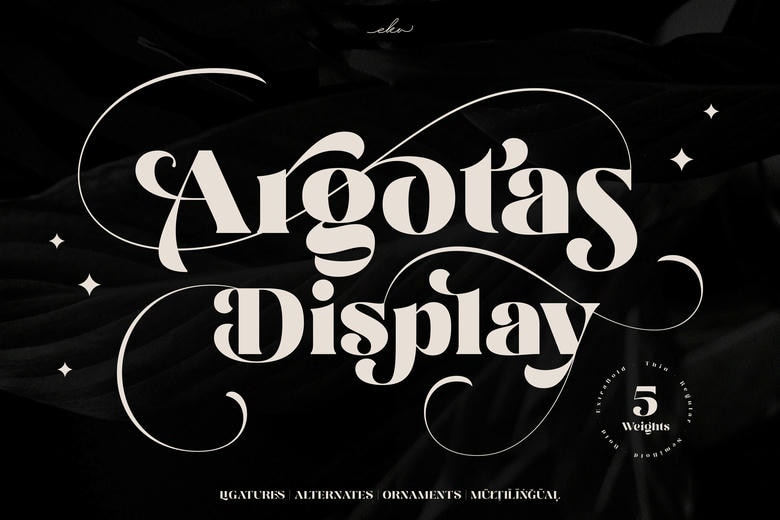
Argotas Font
Argotas is a unique display font that consists of 5 weights, ranging from Thin to Extra Bold. It also includes a variety of alternative characters, ligatures, and ornament characters, giving you a wide range of options to make your design projects more attractive and beautiful by combining special and ornamental characters.
Argotas is sure to become your favorite font, as it is perfect for many different projects, including logo design, branding, posters, magazine headings, labels, quote cards, wedding invitations, merchandise, presentations, advertising, and much more!
Argotas Display Font